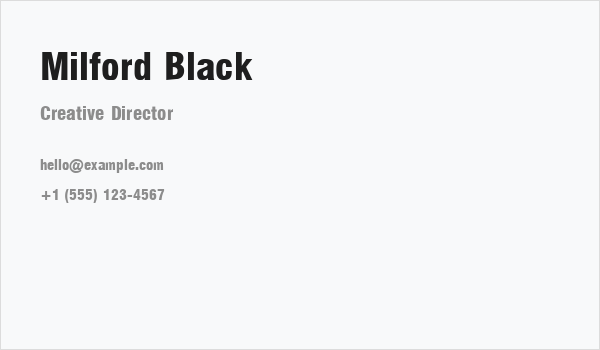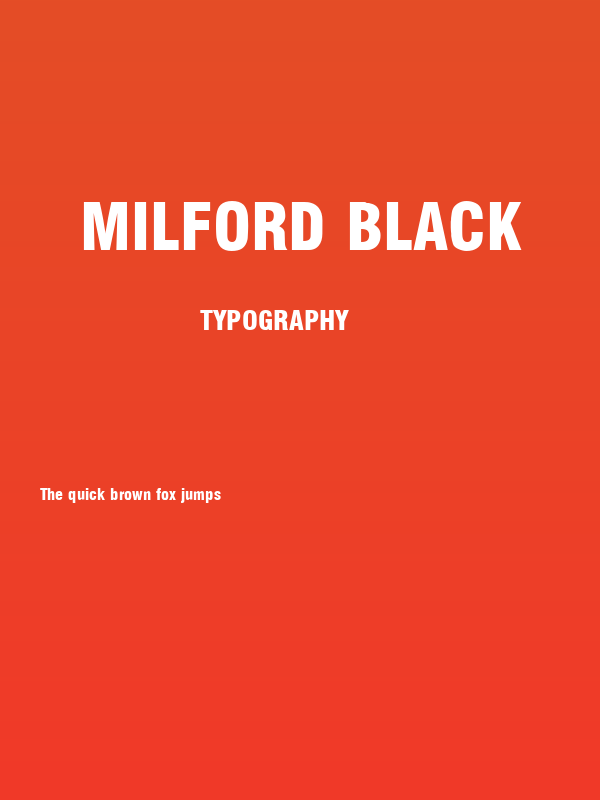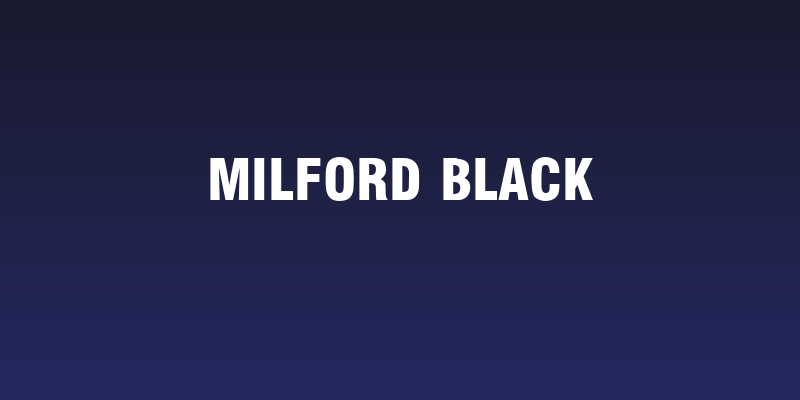
Milford Black Font
Milford Black Description
This font exhibits a bold and commanding presence with its thick, uniform strokes and strong geometric shapes. The uppercase letters are particularly striking, with a robust and solid appearance that conveys strength and stability. The lowercase letters maintain the same boldness, ensuring consistency across all text. The numerals are clear and easy to read, making them suitable for various applications. Special characters are well-defined, adding versatility to the font's use. Overall, this font is designed to make a strong visual impact, ideal for grabbing attention.
| Proposed Projects | Ideal for headlines, posters, branding, and any project requiring a bold statement. |